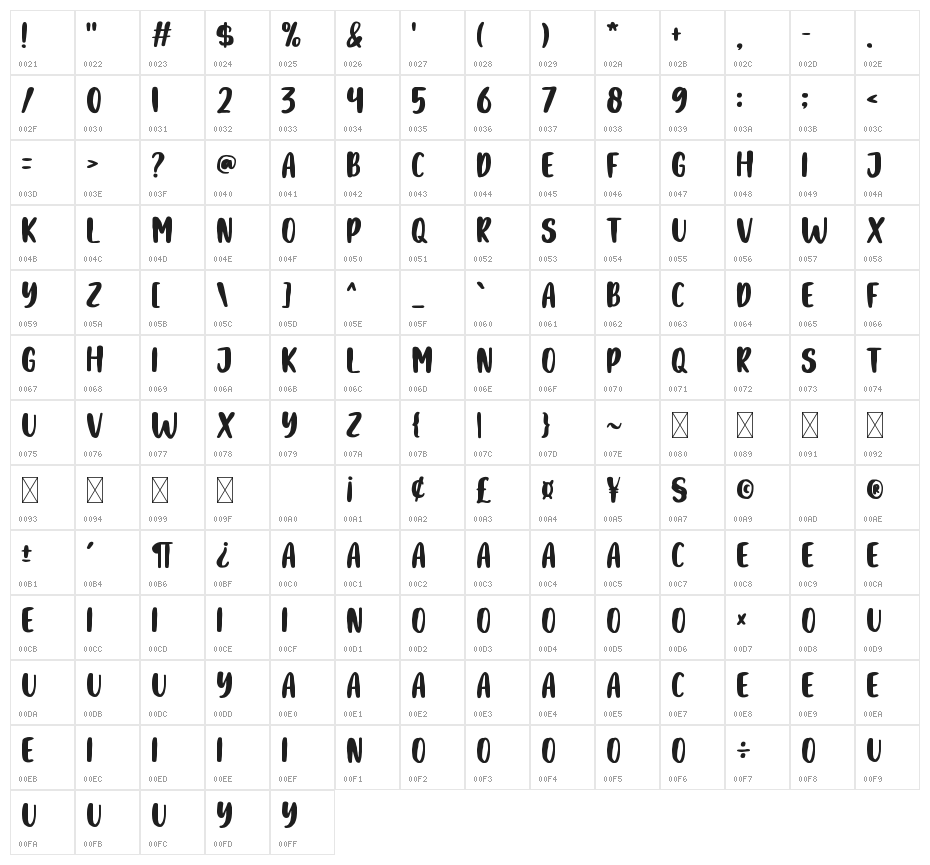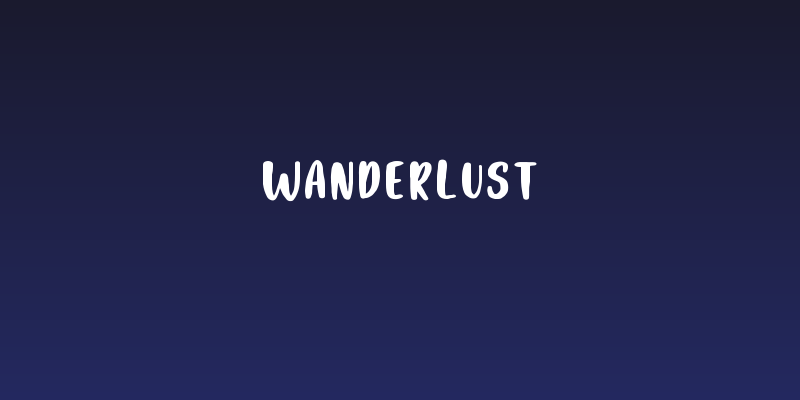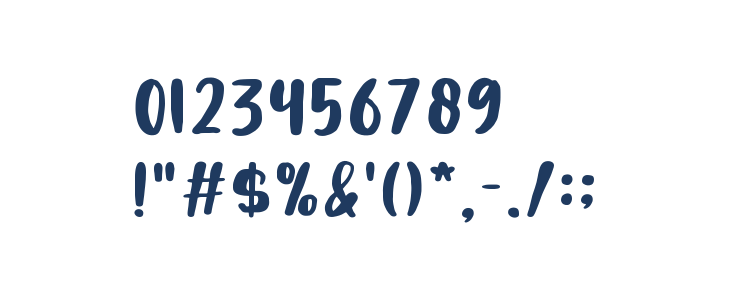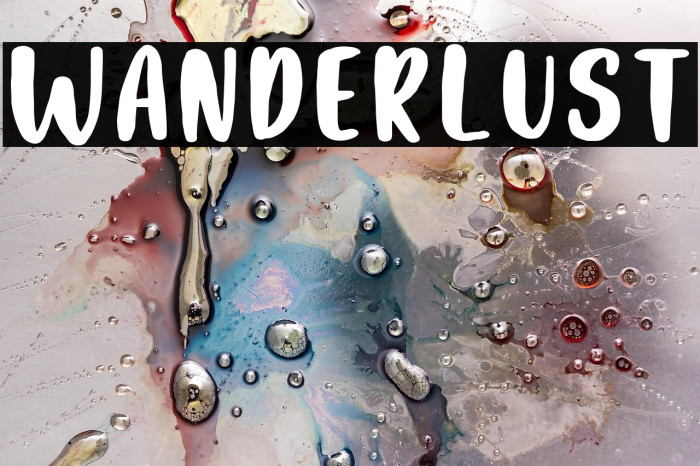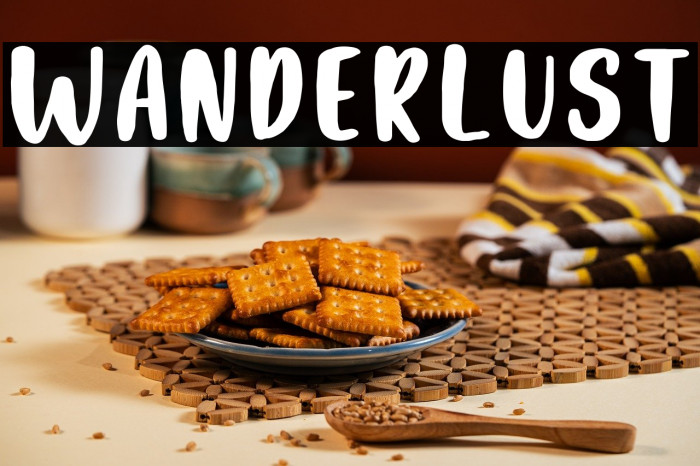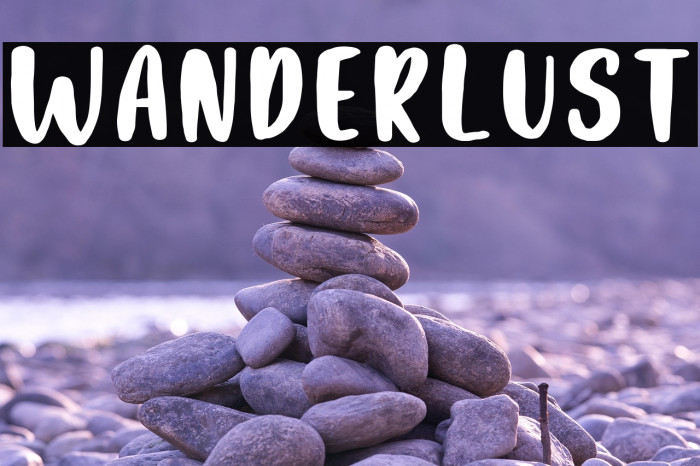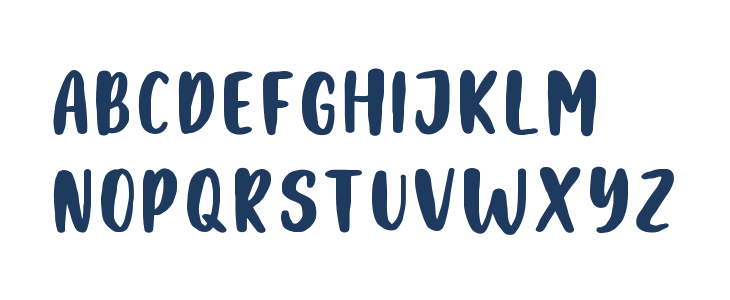
Wanderlust Font
Wanderlust Description
This font features a bold and playful handwritten style, characterized by its thick strokes and rounded edges. The letters are slightly irregular, giving it a casual and friendly appearance. The uppercase and lowercase letters maintain a consistent weight, creating a harmonious look. The numerals and special characters are designed to match the overall style, ensuring a cohesive appearance across all elements. This font is ideal for projects that require a personal touch, such as invitations, greeting cards, or branding for creative businesses.
| Overall Style | Playful, Casual |
| Proposed Projects | Ideal for invitations, greeting cards, branding for creative businesses, and playful designs. |